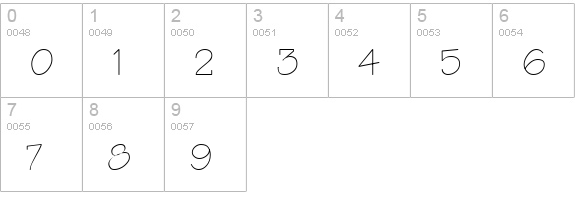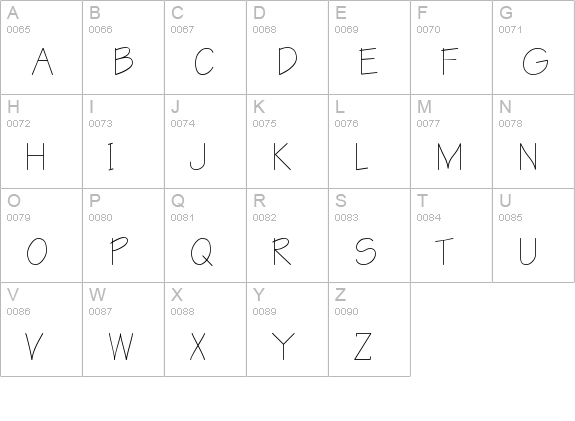
Architect Regular Font Details
Architect Regular is the standard, neutral variant in the Architect typeface family \xE2\x80\x94 well suited to general body text, paragraphs, and standard typographic work.
Architect Regular font is a sleek and modern typeface that exudes elegance and sophistication. Its clean lines and balanced proportions make it suitable for a wide range of design projects, from architectural drawings to branding materials. The font features a unique combination of straight and curved elements, giving it a distinctive and memorable look. With its versatile design, Architect Regular font can be used for both headings and body text, ensuring consistency and readability throughout your designs. The font's timeless appeal makes it a great choice for both print and digital applications, whether you're designing a logo, a website, or a brochure. One of the standout features of Architect Regular font is that it is available for free download at FontsMarket.com. This means that you can easily access and use this high-quality typeface without any cost. Whether you're a professional designer or a hobbyist, having access to free fonts like Architect Regular can greatly enhance your creative projects. So why wait? Download Architect Regular font today from FontsMarket.com and elevate your designs with its stylish and contemporary aesthetic. With its clean and modern design, this font is sure to make a lasting impression on your audience.